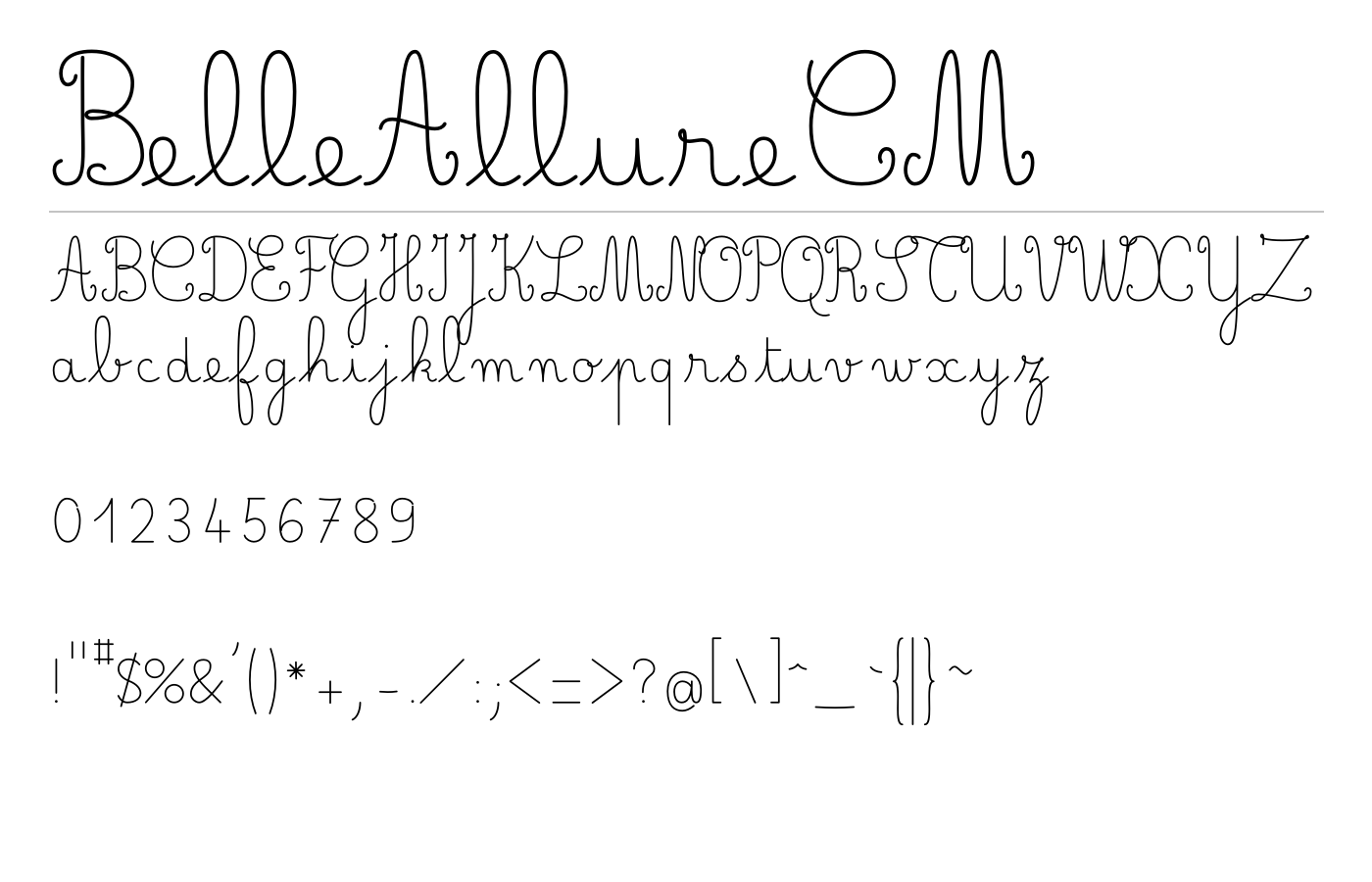
BelleAllureDuctus is a delicate, handwritten script font with a thin, airy stroke that creates an elegant and whimsical feel. Its tall, narrow letterforms with graceful loops and curls give it a playful yet refined personality, making it perfect for invitations, feminine branding, and creative projects that need a personal, artistic touch. This font works beautifully in designs where a light, stylish, and charming look is desired.
BelleAllureDuctus Font
About BelleAllureDuctus Font